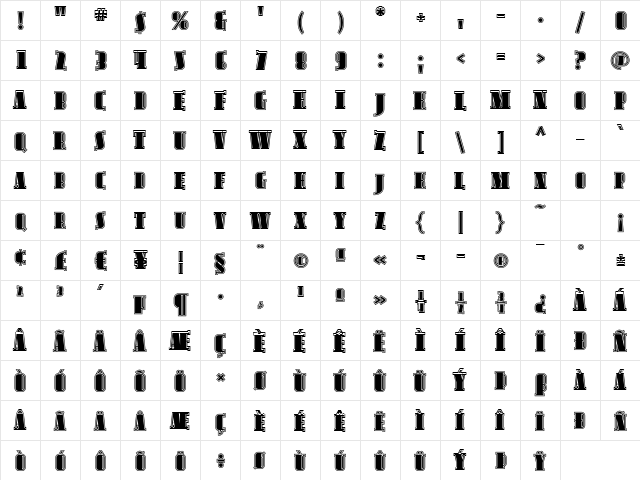
Avondale SC Inline Regular
Designer: Derek Vogelpohl
Complete Avondale SC Inline Regular glyph index. Displaying only characters natively supported by Avondale SC Inline Regular font.
Design Context for Avondale SC Inline
Avondale SC Inline is built around its visual character rather than neutral utility - its distinctive forms are designed to make an impression at display sizes.
Font Pairing: Pair with a clean neutral sans-serif for body copy to let Avondale SC Inline's character lead without overwhelming the composition.
Pro Tip: Use Avondale SC Inline exclusively at display sizes - it was designed to be seen, not read at length. Let a neutral companion handle body copy.